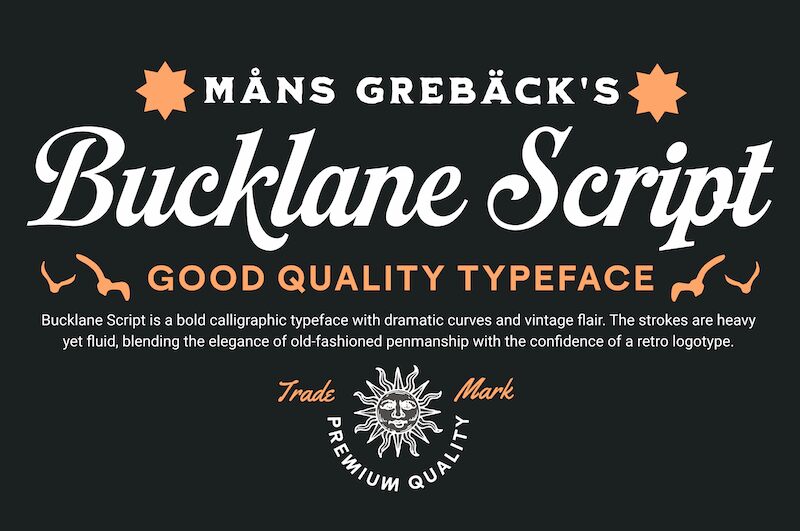
Bucklane Script font by Mans Greback is a bold calligraphic typeface with romantic, ornate curves and vintage flair. It radiates an elegant, sophisticated charm with each word written in it. Striking uppercase forms and ornamental flourishes are what make this free calligraphy font a powerful choice for different types of projects.
Get creative using Bucklane Script for greeting cards, invitations, cosmetic packaging, logotypes, insignias, social media content, magazines covers and spreads. The flowing script also looks great on food packaging (tea or pasta boxes), menus (high-class restaurants), apparel art (tags and labels), or bridal shower stationery.